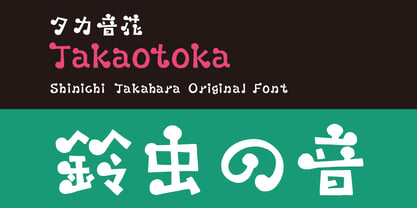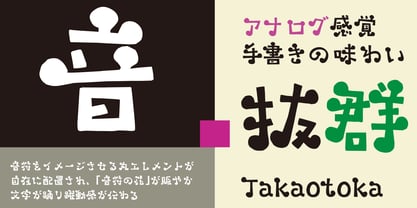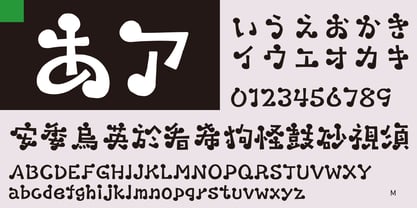
Takaotoka
by Taka Design Production
The Takaotoka Font Family was designed by and published by Taka Design Production. Takaotoka contains 1 styles. More about this family
The circle element evokes the image of a musical note. The “note flower” is lively and the letters dance and convey a sense of dynamism. It is a handwritten typeface with several circle shapes, freely placed at the head and foot of the line.